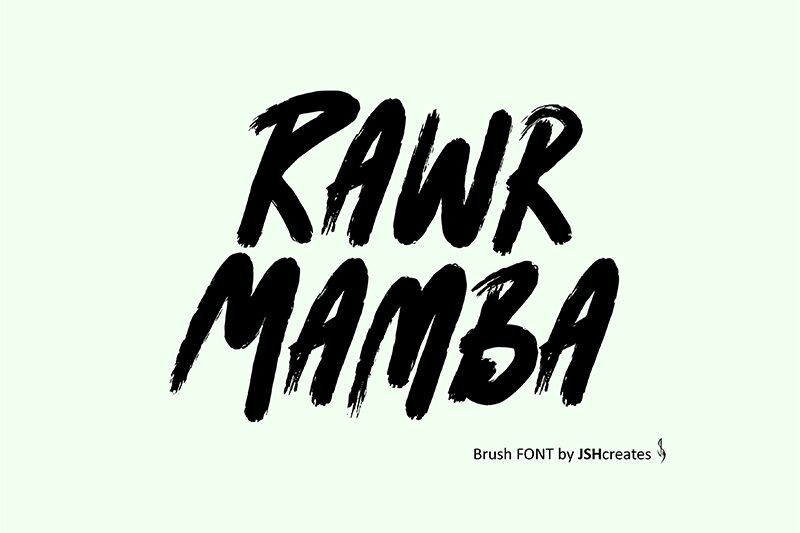
Rawr Mamba font by JSH creates is a free brush font with an expressive and dynamic style. The font presents each of its characters with an energetic presence that defines its strong, bold, and impactful nature. A contemporary font, this modern typeface is for those who love artistic and creative displays, and who are excited to share an artistic personality with their projects.
Rawr Mamba is a wonderful choice for both short and long reads. Keep them fun and interesting with exciting greeting cards and invitations or easily recognizable with logotypes. Present branding designs that can become iconic with this free font or combine its letters for interactive games and apps designs, stickers and signs, dashing pins and patches, not to mention posters, photo albums, website pages, and social media posts.